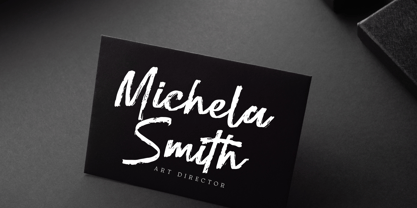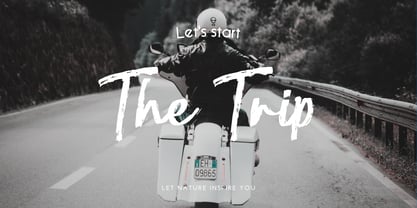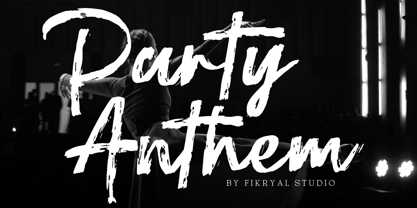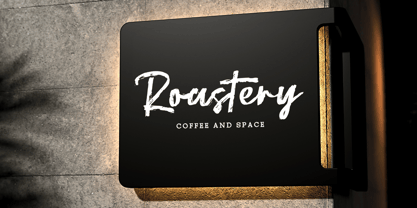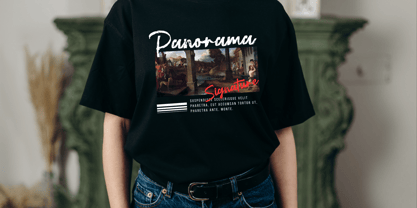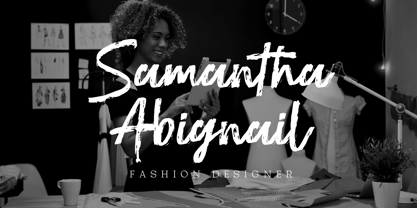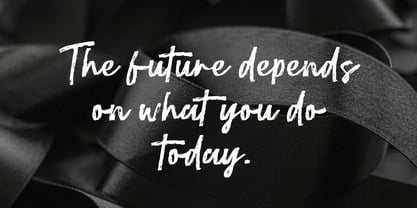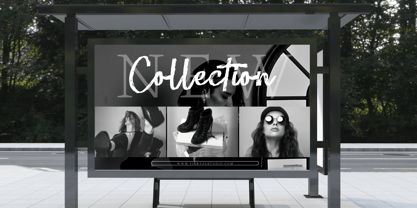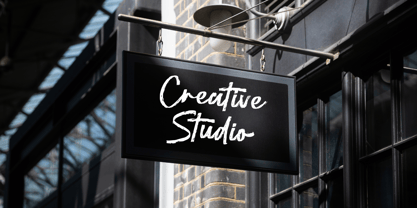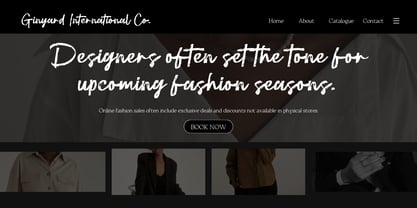
Party Anthem
by Fikryal
The Party Anthem Font Family was designed by Muhammad Fikry and published by Fikryal. Party Anthem contains 1 styles.
Party Anthem is a natural and elegant brush script font designed to make your projects shine with personality. Its hand-drawn strokes exude a carefree yet sophisticated charm, making it perfect for invitations, logos, branding, social media graphics, product packaging, and more.
With its versatile style, Party Anthem effortlessly combines modern aesthetics with a touch of playful elegance. The font includes ligatures characters to give your designs a custom feel. Whether you’re creating for weddings, events, or lifestyle brands, Party Anthem will elevate your work with its unique flair.
Features:
• Handcrafted brush script style
• Elegant and natural strokes
• Includes ligatures characters
• Multilingual support
Unleash your creativity with Party Anthem and add a touch of handcrafted elegance to your designs!